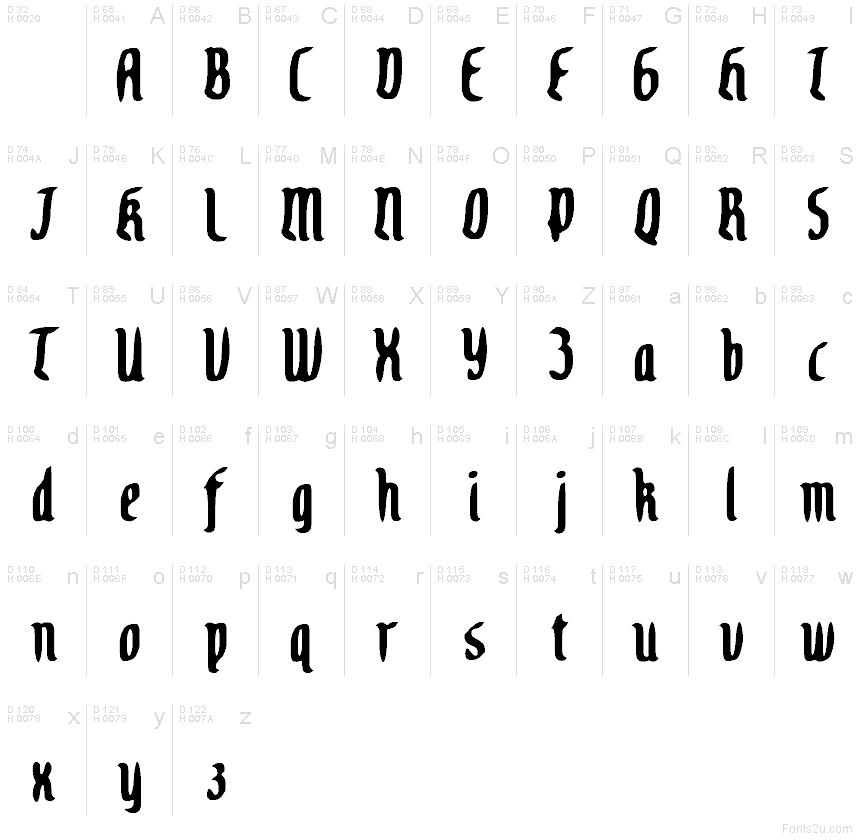
CSBrineDrawn-Regular Demo
CS Brine Drawn font by Craft Supply Co. combines Gothic style with a modern twist, providing an artistic flair to any project. Its condensed structure and ornamental elements convey a medieval impression while maintaining readability. With a strong presence, this free display font stands out with unique details and a historic influence.